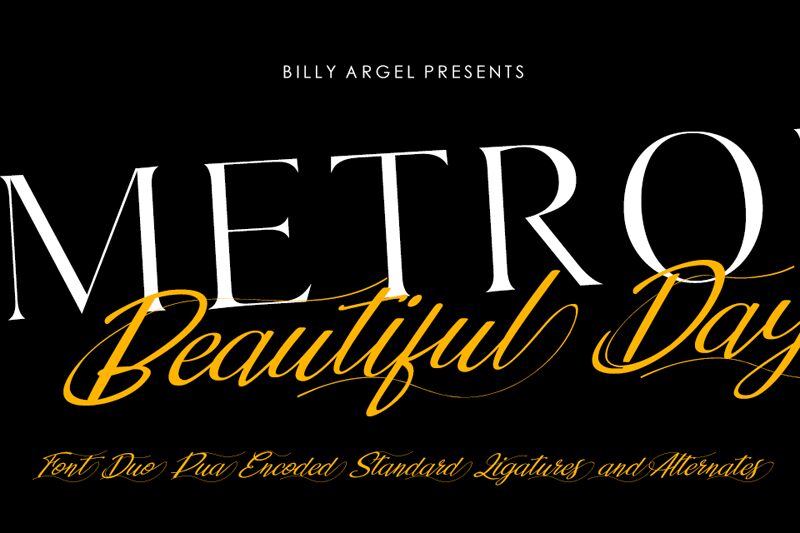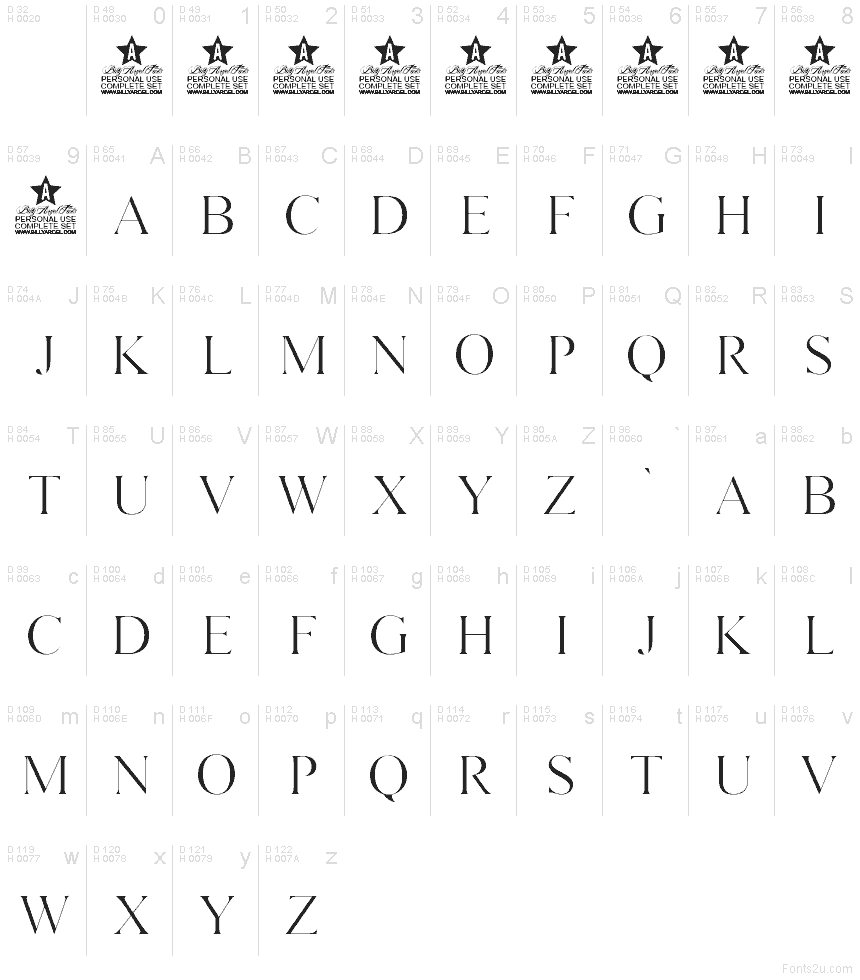
Metropolis font from Billy Argel Fonts exudes sophistication and elegance. This free serif font showcases vintage influence with a high-end aesthetic that captures attention effortlessly. Its classic style is both timeless and versatile, making it an ideal choice for projects that demand a refined appearance.
Utilize Metropolis for branding projects, logo designs, book covers, editorial layouts, product packaging, advertising campaigns, business cards, fashion magazines, invitations, and luxury brand identity.
Font Duo is PUA Encoded.